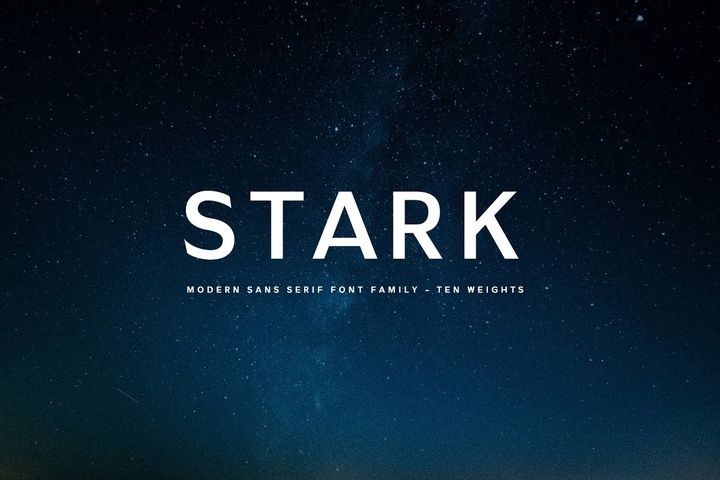
Stark Font
Stark Font is perfect for minimalist branding, industrial design projects, architectural firms, modern corporate identities, clean technology companies, contemporary art galleries, stark advertising campaigns, brutal design aesthetics, raw fashion brands, and uncompromising business communications.
What makes Stark Font exciting is its uncompromising boldness that embodies pure minimalism and industrial strength through brutally crafted letterforms. This powerful typeface combines stark simplicity with commanding presence, creating a personality that communicates directness, strength, and uncompromising quality. The font's brutal character and minimalist appeal make it perfect for brands seeking to cut through visual noise and communicate with absolute clarity and undeniable authority in competitive markets.
The Stark Font family includes Regular, Bold, Light, Medium, Brutal, Industrial, Condensed, and Raw variants. Each weight maintains the font's stark character while providing comprehensive typographic flexibility for minimalist brand identity systems and industrial design applications across diverse contemporary platforms.
Whether you're developing industrial brand identities, creating stark marketing materials, designing architectural presentations, or building uncompromising advertising campaigns, Stark Font delivers unmatched minimalist appeal and brutal sophistication. Its commanding presence makes it perfect for architectural firms, industrial companies, technology brands, and contemporary businesses seeking authentic minimalist representation.
The font's brutal proportions and stark details create an impactful reading experience that commands immediate attention and respect. Each letterform has been carefully engineered to eliminate unnecessary elements while maximizing visual impact and communicative power that resonates with audiences seeking clarity and strength.
This versatile typeface excels in industrial environments, offering designers the authority needed for comprehensive minimalist brand communication strategies. The extensive character set includes stark alternates, brutal ligatures, and industrial symbols for contemporary market positioning and minimalist brand storytelling.
Embrace the power of stark design that cuts through complexity and celebrates uncompromising industrial excellence.